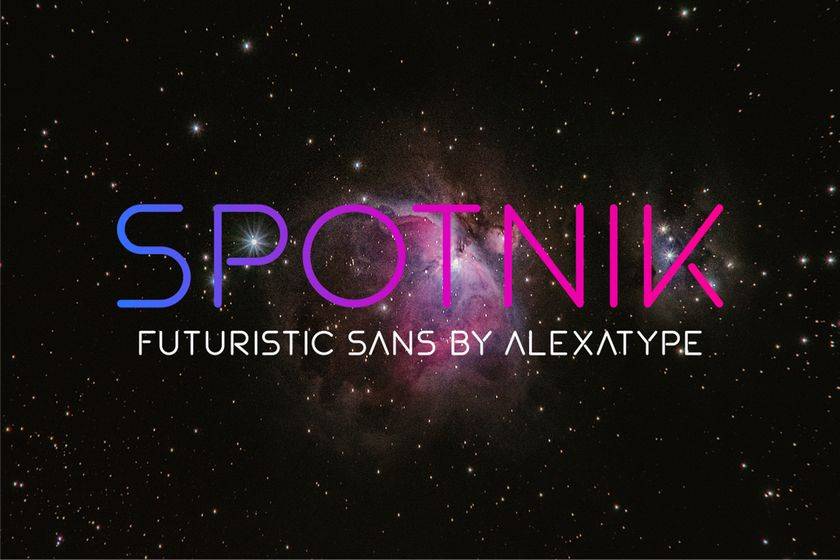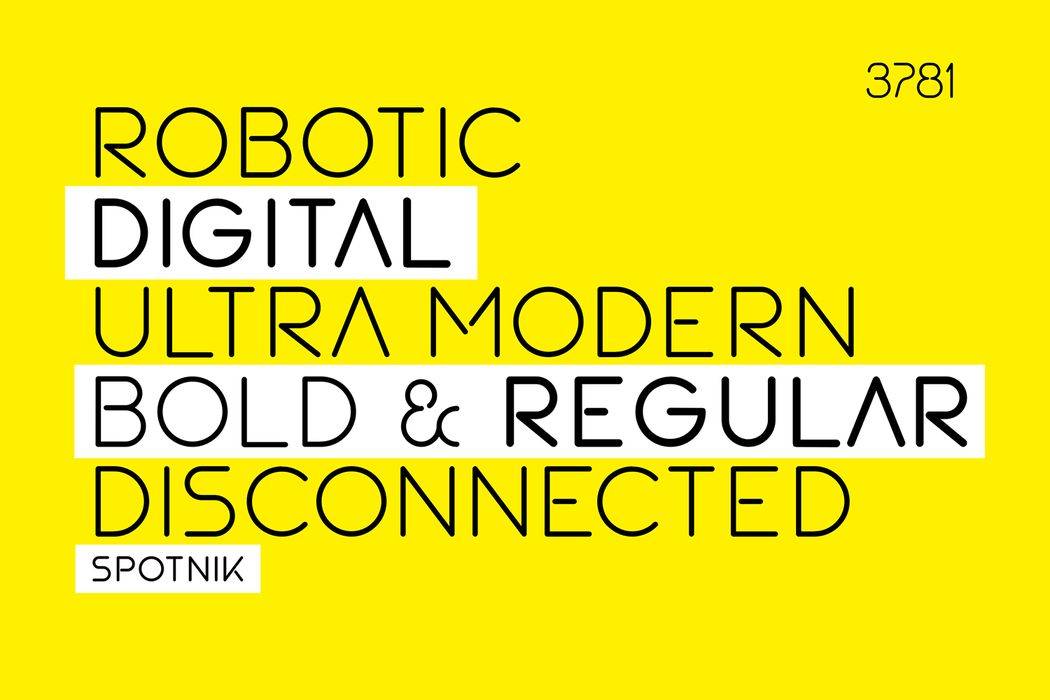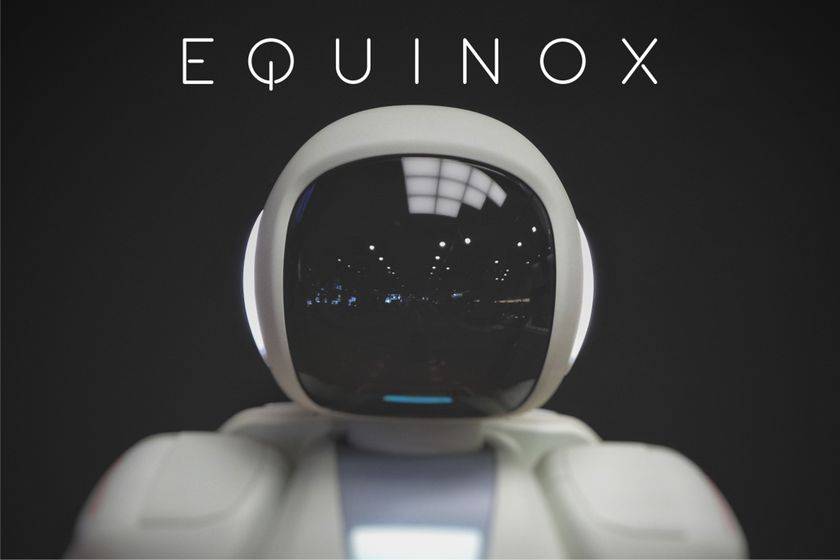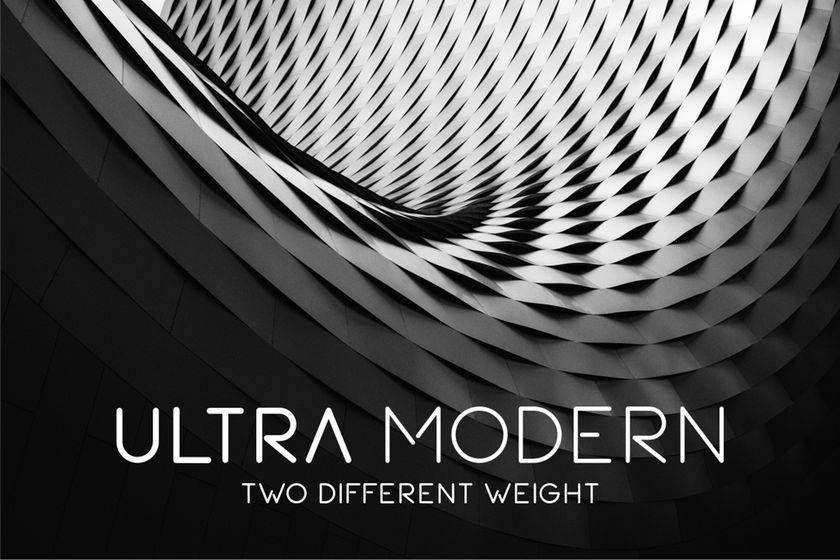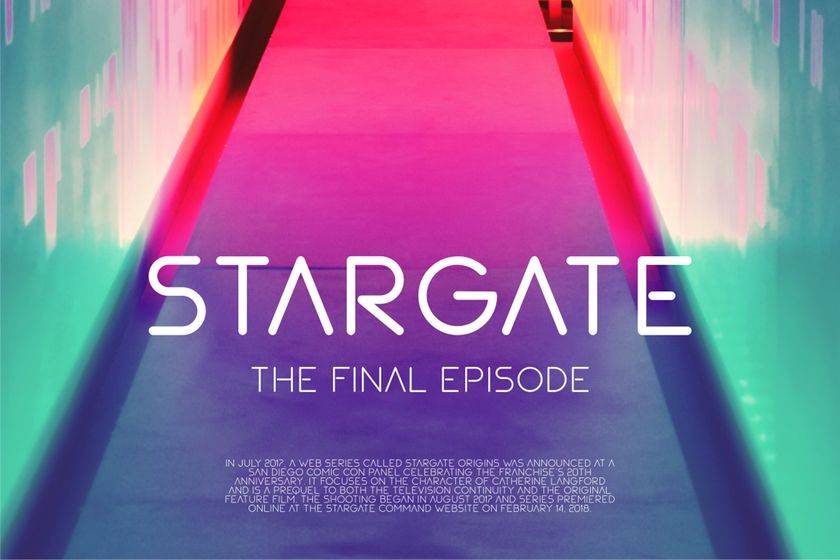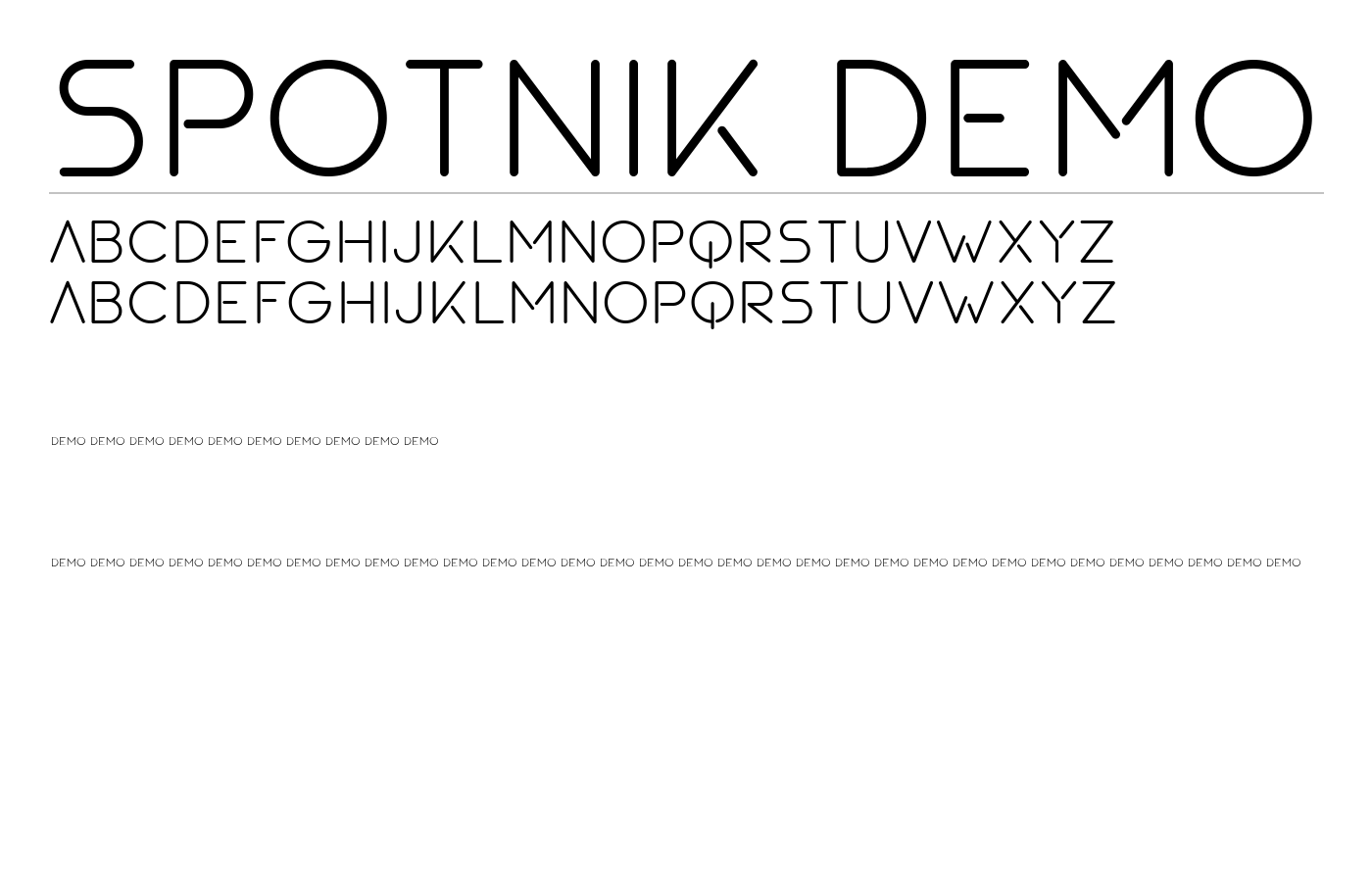
Spotnik is a sleek, modern sans-serif font characterized by thin, geometric lines and a clean, minimalist aesthetic. Its high x-height and unique letterforms—such as the single-story ‘a’ and distinctive ‘Q’—give it a futuristic and elegant feel, making it ideal for contemporary branding, tech-related projects, and stylish editorial designs. This font’s airy spacing and sharp, uniform strokes ensure readability while maintaining a sophisticated and innovative vibe.
Spotnik Font
About Spotnik Font
| Font family | Spotnik Font |
| Release date | 2019-07-08 |
| Designer | Sahirul Iman, Semarang, alexatype |